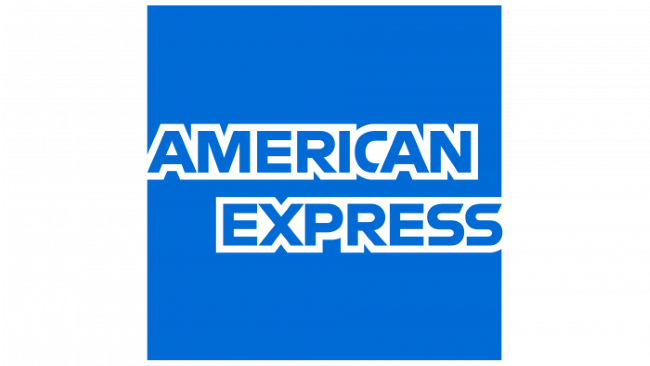
American Express Font is a key part of the brand’s identity, symbolizing security, prestige, and reliability in the financial world. The American Express logo font is instantly recognizable, appearing on credit cards, ads, and digital platforms worldwide.
AMERICAN EXPRESS Font
The American Express logo font is a bold, geometric sans-serif typeface, designed to convey strength and clarity. Its clean lines and powerful presence make it stand out in any context, whether on a small card or a large billboard. By using such a bold design, the American Express logo font reinforces the company’s image as a trustworthy and established financial institution.